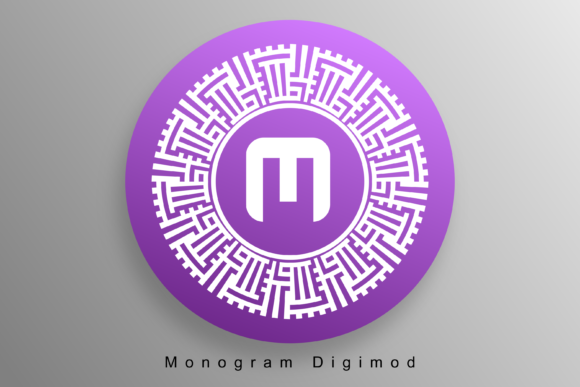
Monogram Digimod Font
**Indulge in the Enchanting World of Monogram Digimod: Where Elegance and Creativity Intertwine**
Prepare to be captivated by the exquisite Monogram Digimod font, a work of art meticulously crafted by Rusd studio. This decorative font is not just a collection of letters; it's an invitation to unleash your imagination and elevate your designs to breathtaking heights.
**Etch Unforgettable Memories with Monogram Digimod**
Imagine the joy of receiving a letter adorned with the intricate flourishes of Monogram Digimod. Each stroke evokes a sense of timeless elegance, transforming your words into cherished keepsakes. Your wedding invitations will become masterpieces, announcing the most important day of your life with unparalleled grace.
**Unleash Your Inner Artist with Monogram Digimod**
Whether you're a seasoned designer or a creative enthusiast, Monogram Digimod will ignite your inspiration. Its versatility knows no bounds, making it the perfect choice for an array of projects. From captivating logos to stunning social media graphics, Monogram Digimod will elevate your designs to new heights.
**Experience the Beauty of Details with Monogram Digimod**
The intricate details of Monogram Digimod are a testament to the artistry of its creator. Each letter is adorned with delicate embellishments, ensuring that your designs will captivate every beholder. The font's beauty lies in its ability to transform ordinary words into extraordinary works of art.